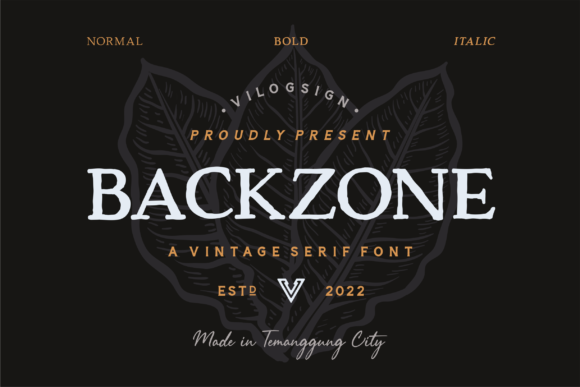
Introducing Backzone Font: The Ultimate Vintage Serif for Creative Projects
In the world of typography, fonts play a crucial role in conveying the tone and personality of a brand or design. For designers and crafters looking for a unique and stylish serif font, Backzone is an excellent choice. This vintage and cool serif font is perfect for a wide range of creative projects, from product packaging and branding to magazine covers, social media, and wedding designs.
The Charm of Backzone Font
Backzone font boasts a distinctive vintage charm that instantly adds a touch of nostalgia and sophistication to any design. Its serif style, characterized by small lines or flourishes at the ends of the strokes, gives it a classic and elegant look. The font’s unique design elements, such as its subtle imperfections and refined lines, make it stand out from other serif fonts.
Backzone font is incredibly versatile and can be used for a variety of design projects. Here are some of the ways you can utilize this amazing font:
- Product Packaging: Create eye-catching packaging designs that reflect your brand’s personality with Backzone font.
- Branding Projects: Establish a strong brand identity with this distinctive font, perfect for logos, business cards, and more.
- Magazine Covers: Grab the attention of your readers with a stunning magazine cover design featuring Backzone font.
- Social Media: Elevate your social media presence with engaging graphics and posts designed with Backzone font.
- Wedding Designs: Add a touch of elegance and romance to your wedding designs, such as invitations, programs, and decorations.
Why Choose Backzone Font?
With so many fonts available, why should you choose Backzone for your design projects? Here are some compelling reasons:
- Unique Style: Backzone font offers a distinctive vintage style that will set your designs apart from the rest.
- High-Quality Design: The font is carefully crafted with attention to detail, ensuring a high-quality design that looks great in any context.
- Easy to Read: Despite its vintage style, Backzone font is easy to read, making it perfect for body text and headlines.
- Versatile: This font can be used for a wide range of design projects, from print to digital media.
Tips for Using Backzone Font Effectively
To get the most out of Backzone font, here are some tips for using it effectively in your designs:
- Pair with Other Fonts: Experiment with pairing Backzone font with other fonts to create a unique and harmonious design.
- Adjust Font Size: Play with different font sizes to create visual hierarchy and emphasize important elements.
- Use Colors Wisely: Choose colors that complement the font and add to the overall aesthetic of your design.
- Experiment with Effects: Don’t be afraid to try out different effects, such as textures or gradients, to add depth to your design.
| Font Name | Backzone Font |
| Author | Vilogsign |